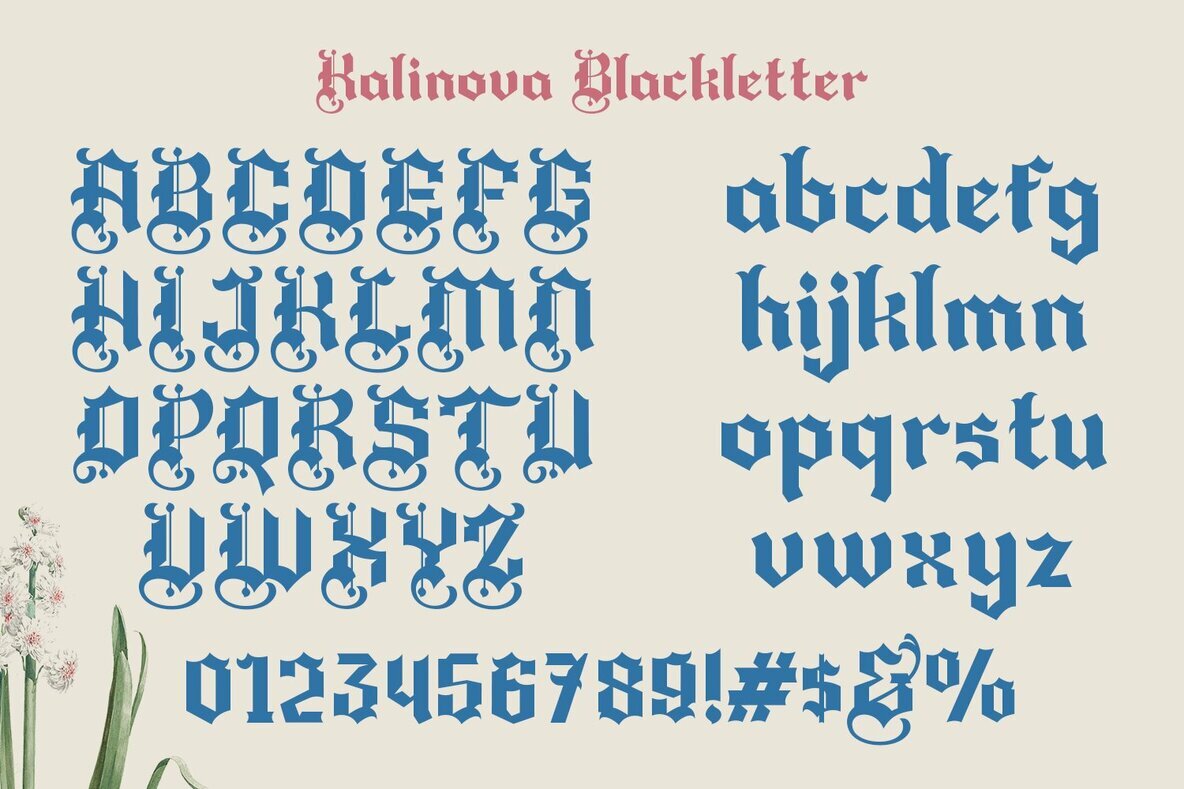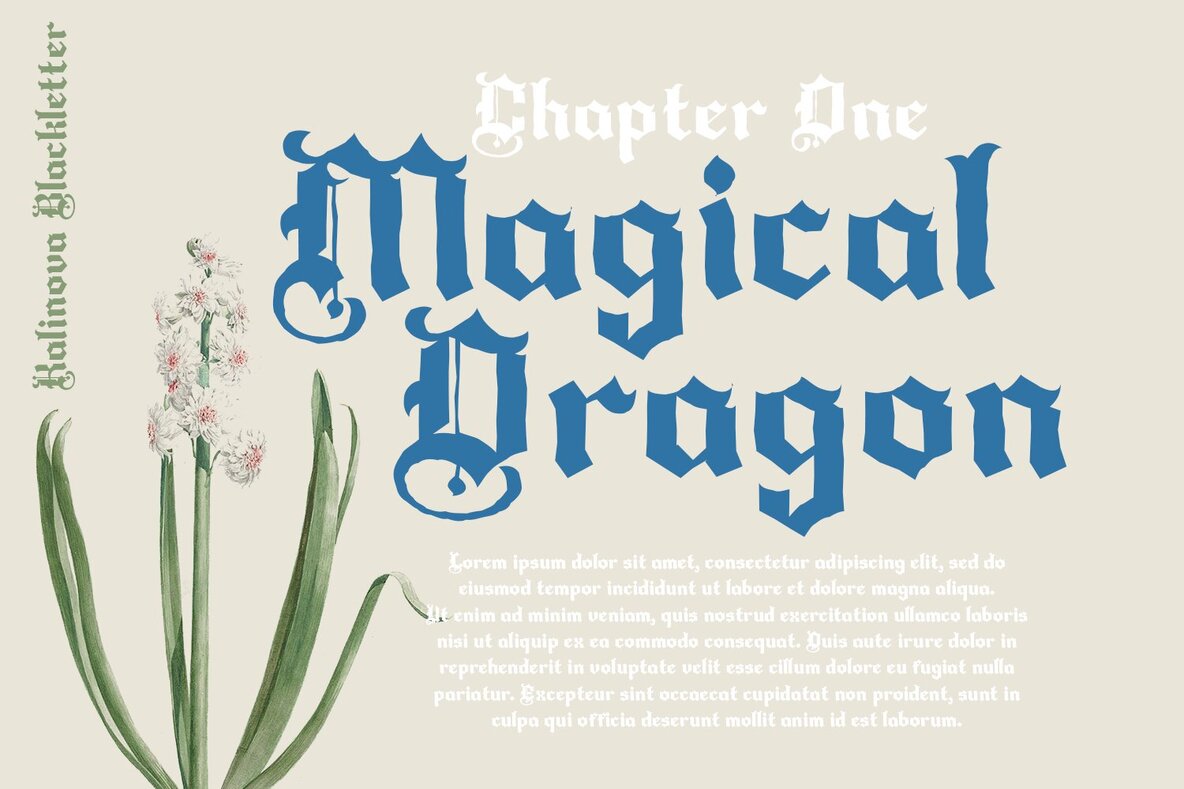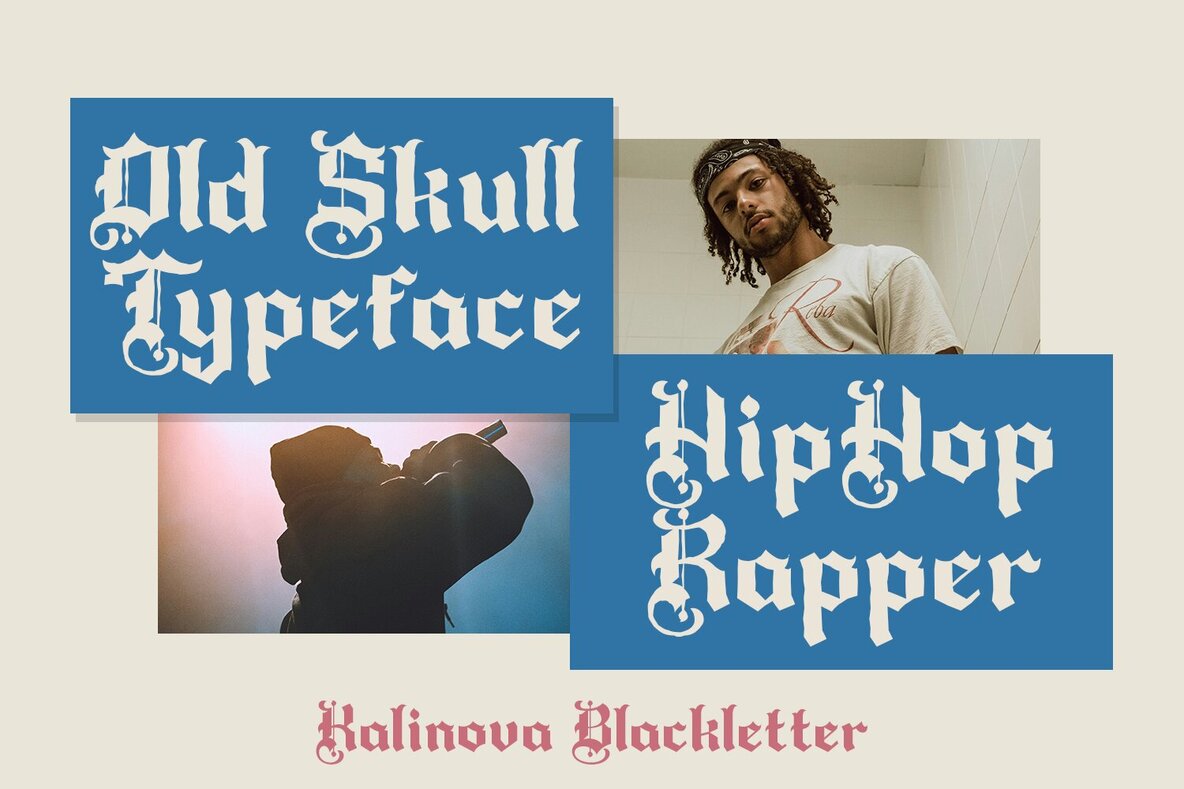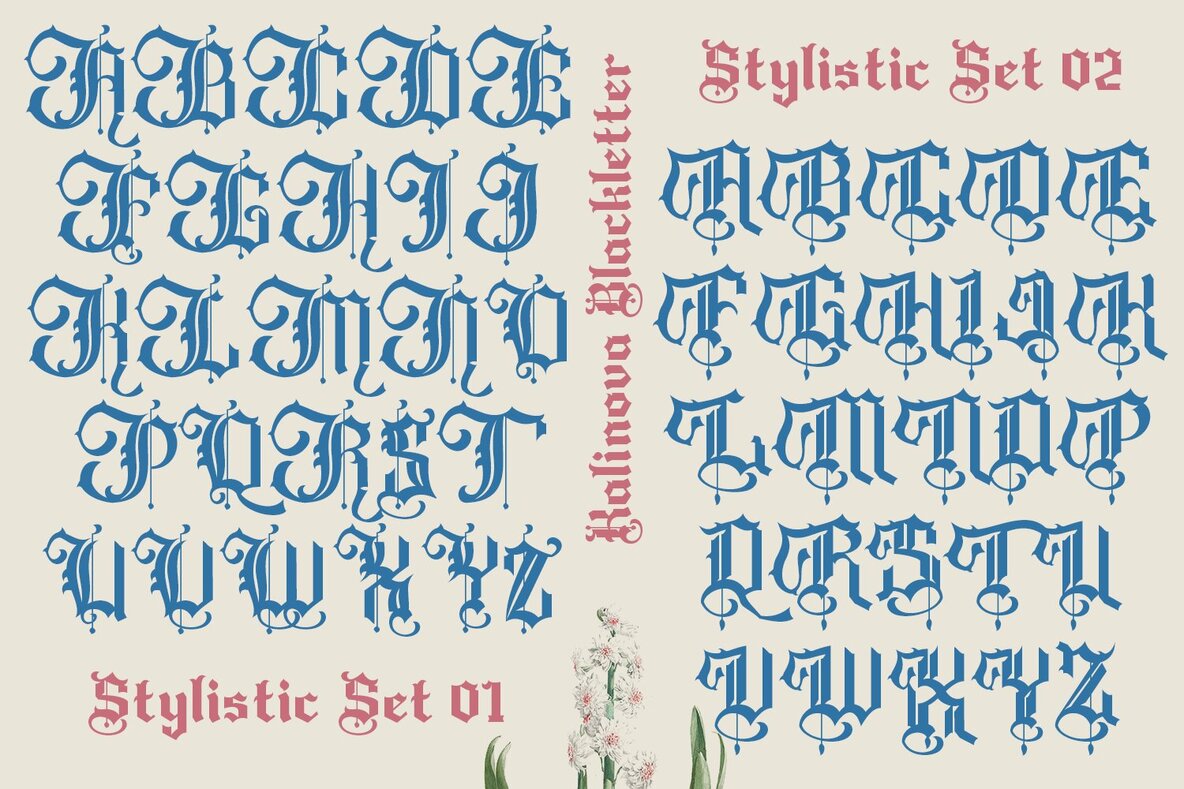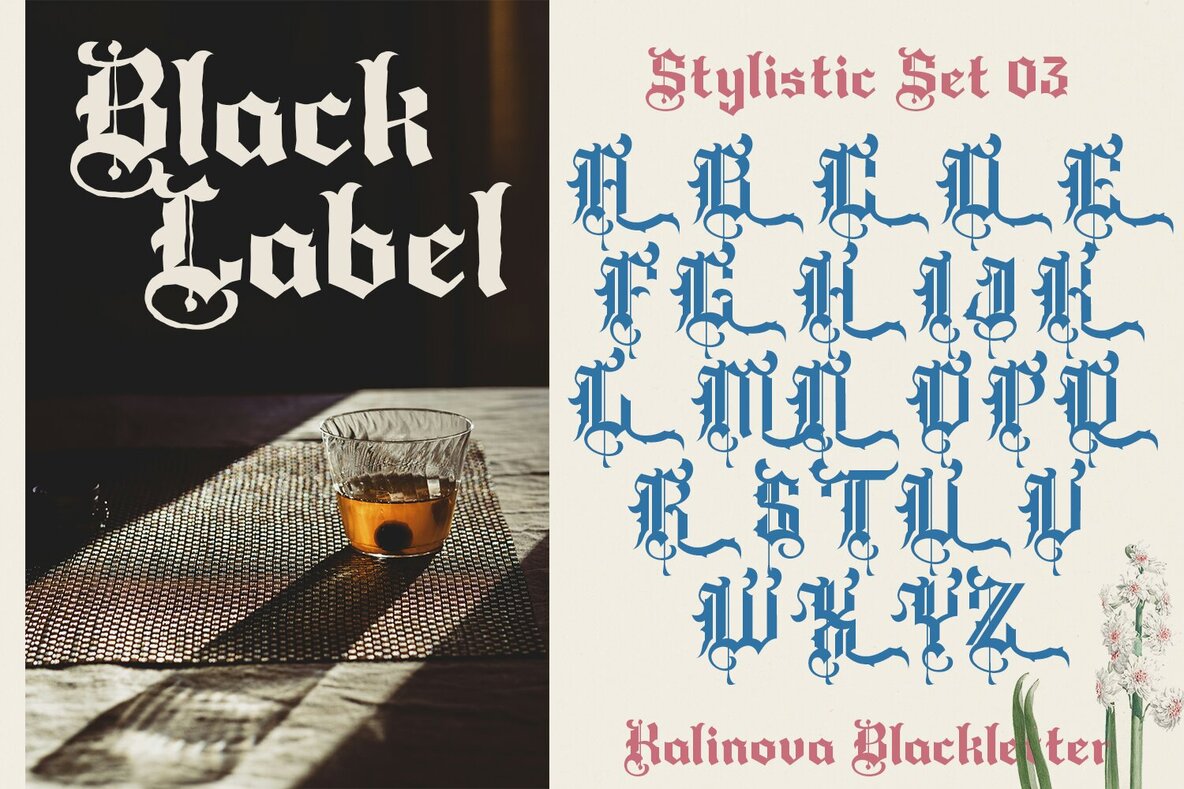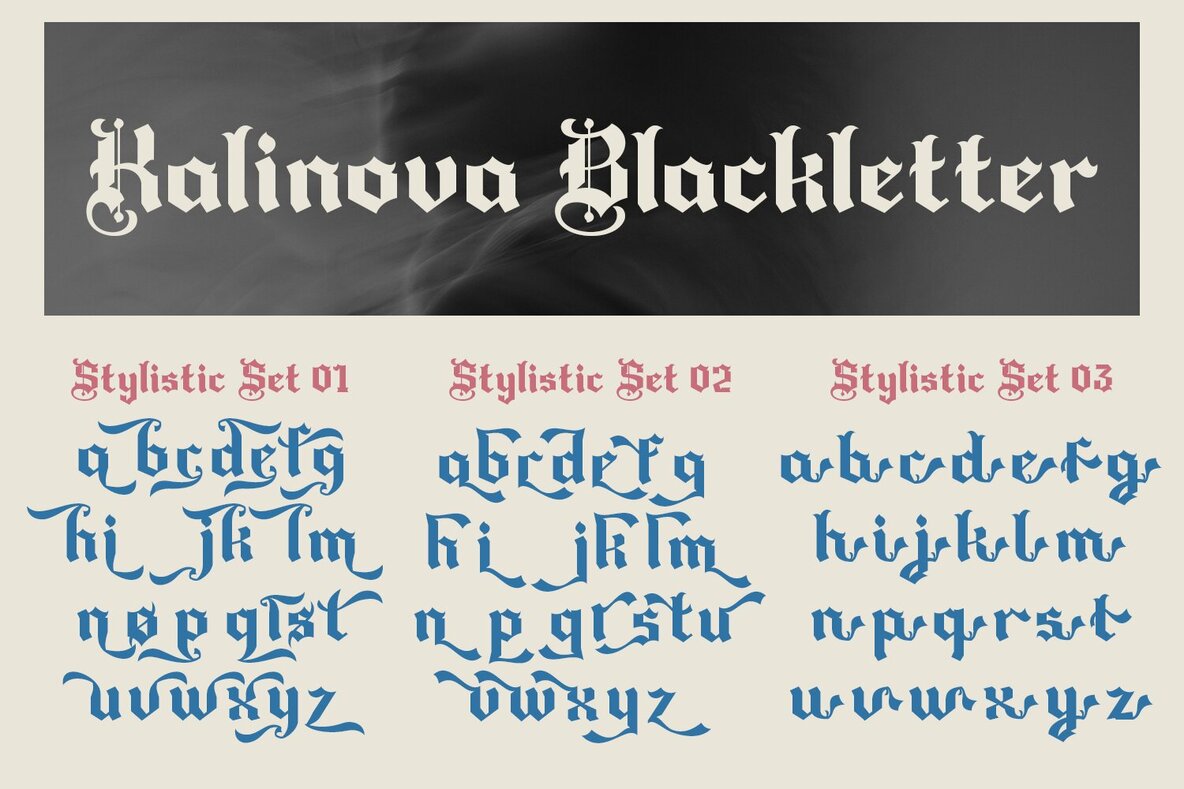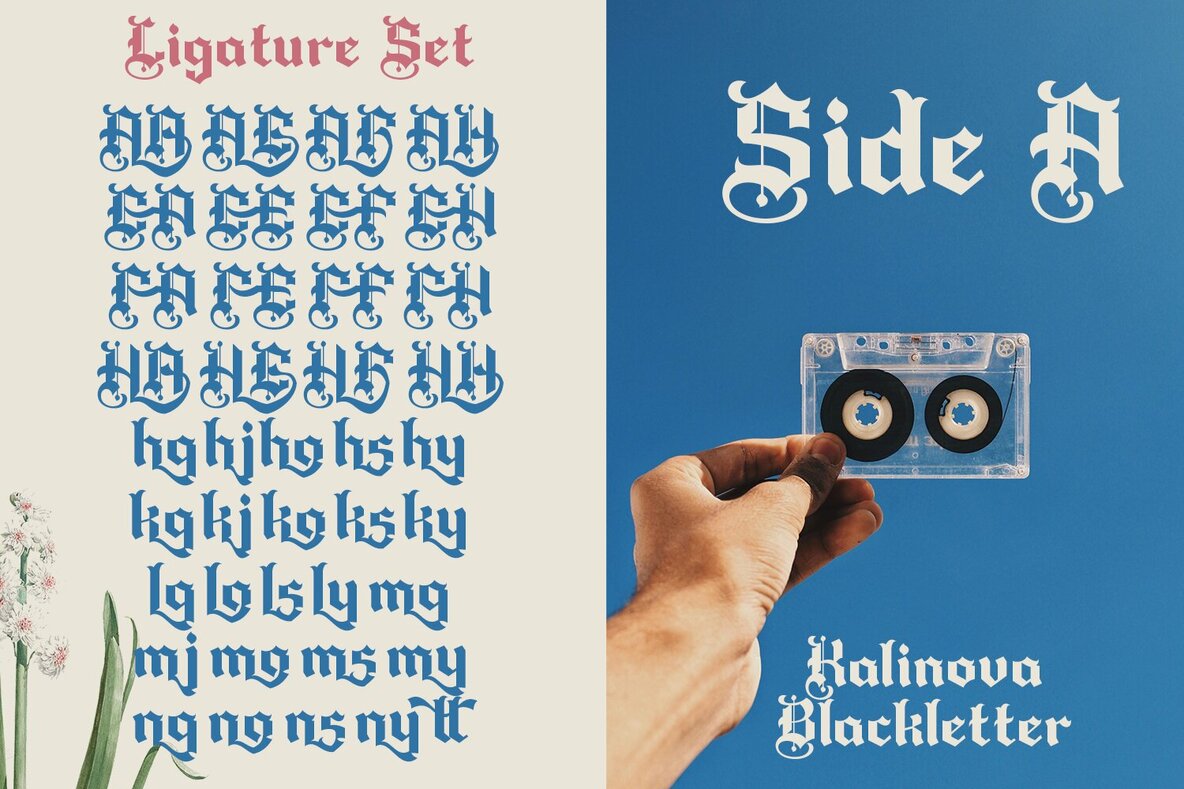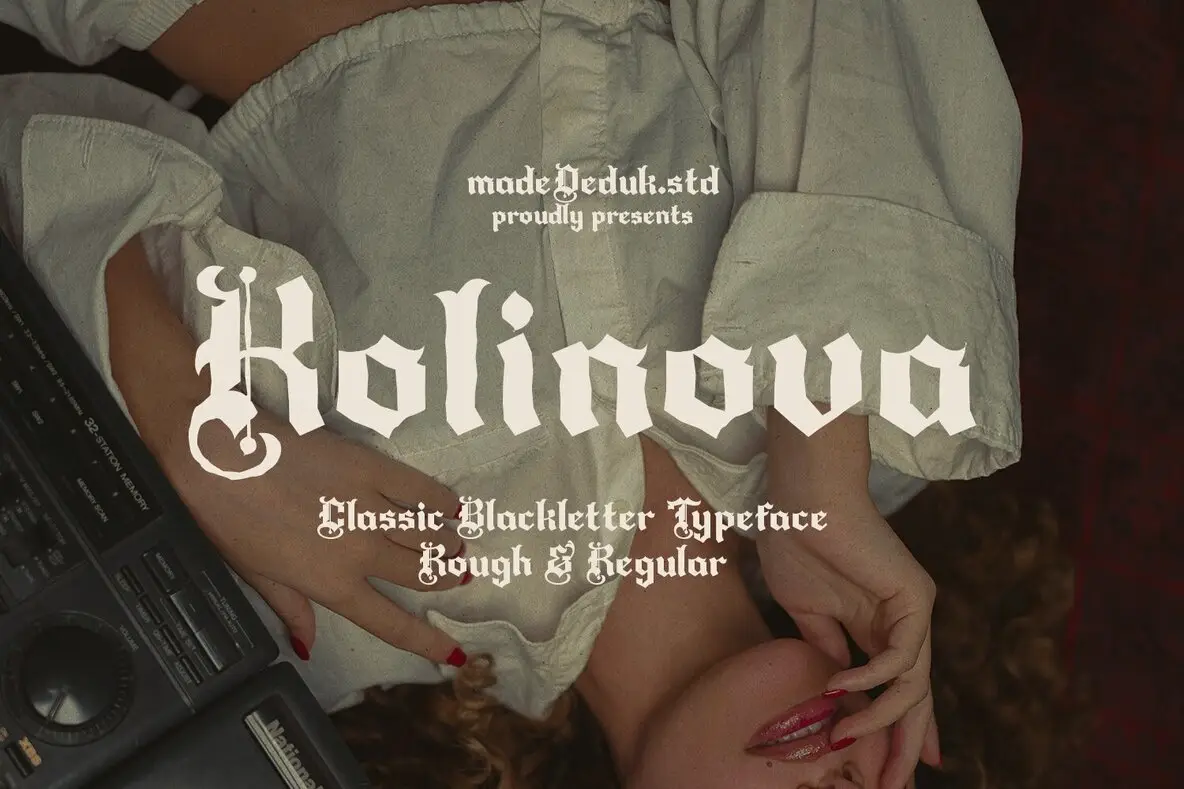
Kolinova Font
Kolinova Regular
Kolinova Rough
Kolinova embraces the essence of blackletter typefaces with its bold and dramatic strokes, coupled with intricate detailing. Each character is crafted to imbue your text with a rugged, vintage charm that stands out effortlessly. Features:Kolinova: Classic Blackletter Elegance